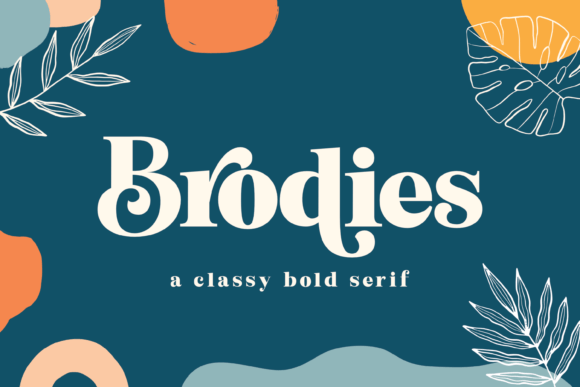
The Brodies Font: A Modern Display Font with a Friendly Twist
An Honest Review of Brodies Font
So, what makes Brodies font so special? Let’s take a closer look at its strengths and weaknesses.
What I Love About Brodies Font
- ✨ Clean and modern design: Brodies font boasts clean forms and a bit of curly letter ends, creating a friendly and approachable mood in any design.
- ✅ Versatility: This font is perfect for a wide range of applications, including headlines, magazines, logotypes, food packages, advertising, and many more.
- ✅ Ease of use: Brodies font is incredibly easy to read and works well in both digital and print formats.
While Brodies font is an excellent choice for many design projects, there are a few minor quirks to be aware of:
- ⚠️ Limited suitability for body text: Due to its modern and display nature, Brodies font might not be the best choice for lengthy body text. It’s ideal for headlines and titles, but you may want to pair it with a more traditional font for longer content.
- 🤔 Some letter combinations: As with any font, some letter combinations might not look perfect. For example, the combination of certain letters might create a slightly awkward kerning. However, these instances are rare and can be easily adjusted in most design software.
A Practical Guide to Using Brodies Font
The Backstory of Brodies Font
The Brodies font was designed with the goal of creating a modern display font that’s both clean and friendly. The designer aimed to craft a font that would be perfect for headlines, magazines, and logotypes, while also being easy to read and versatile. Although the exact details of the design process are unknown, it’s clear that the Brodies font was created with the intention of bringing a fresh and approachable feel to the world of typography.
| Author | Letterflow Studio |
Q: What is the best use for Brodies font?
A: Brodies font is perfect for headlines, titles, and short text elements. It’s ideal for designs that require a modern and friendly feel, such as branding, advertising, and magazines.
A: While Brodies font is easy to read, it’s not the best choice for lengthy body text. It’s recommended to pair it with a more traditional font for longer content.
Q: Is Brodies font suitable for digital use?
A: Yes, Brodies font works well in digital formats, including websites, social media, and digital advertising.